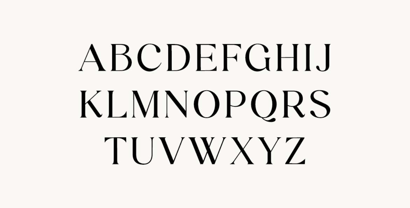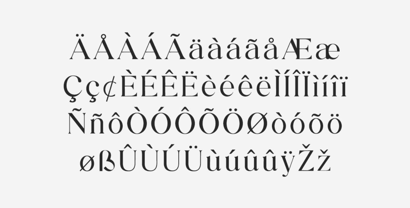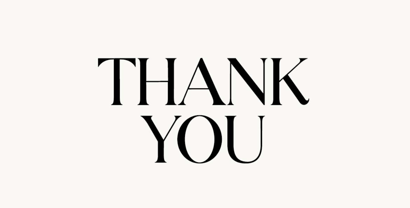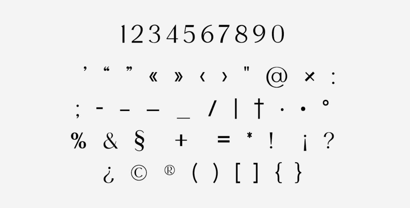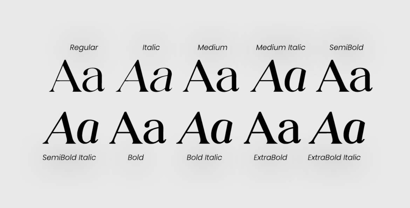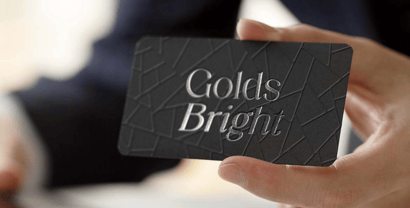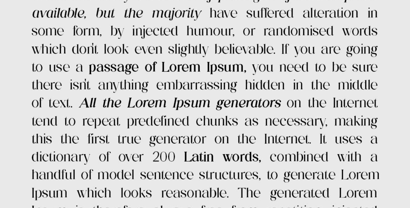
Luminary Serif
The Luminary Serif Font Family was designed by Hero and published by UICreative. Luminary Serif contains 10 styles and family package options.
Introducing our new product the name is Luminary Serif Family . Luminary Serif Family Font that feels beautiful classy, elegant, and modern. This font is perfectly suited for a wide variety of projects, such as signature, stationery, logo, wedding, typography quotes, magazine or book covers, website headers, clothing, branding, packaging design, and more. Also, fashion-related branding or editorial design displays both masculine and feminine qualities.
Luminary Serif is a refined and sophisticated serif font family that exemplifies typographic excellence through its harmonious proportions, meticulous detailing, and versatile character set. This elegant typeface collection strikes a perfect balance between classical serif traditions and contemporary design sensibilities, offering designers a comprehensive toolkit for creating visually stunning and highly readable text across diverse applications. With its thoughtful construction and timeless aesthetic, Luminary Serif embodies the qualities of sophistication, elegance, and modernity that define premium typography in both print and digital environments.
The Luminary Serif family features carefully calibrated weights and styles that work together seamlessly while maintaining individual character, allowing for nuanced typographic hierarchies and expressive design possibilities. Each character has been crafted with precision to ensure optimal legibility at various sizes while preserving the distinctive personality that makes this typeface family truly special. The font's balanced proportions and refined serifs create a reading experience that feels both comfortable and luxurious, making it particularly well-suited for extended text in premium publications, brand communications, and sophisticated digital interfaces.
Luminary Serif Family excels in editorial design, luxury branding, corporate identity, wedding stationery, high-end packaging, and sophisticated web design. Its versatile character allows it to convey authority and refinement in business contexts while simultaneously expressing warmth and elegance in more personal applications. This comprehensive font family provides designers with the typographic flexibility needed to create cohesive visual systems that maintain their integrity across multiple touchpoints and applications.
Luminary Serif Family Features:
• Extensive Character Set Including Ligatures and Special Characters
• Full Uppercase and Lowercase Character Sets with Small Caps
• OpenType Features for Advanced Typography Control
• Carefully Optimized Kerning Pairs and Spacing
• Extended Language Support for International Typography
• Special Attention to Screen Readability Across Devices